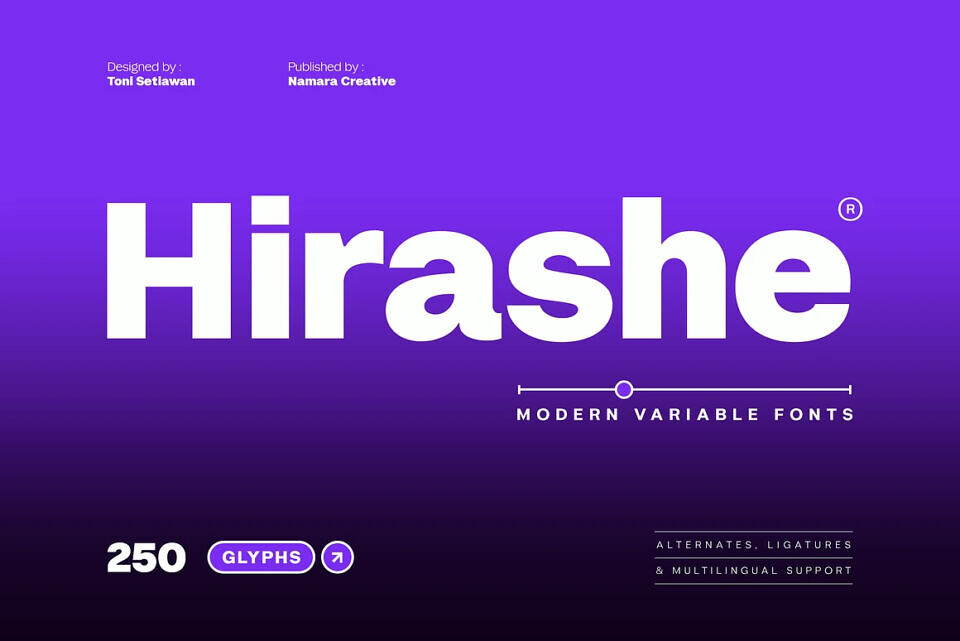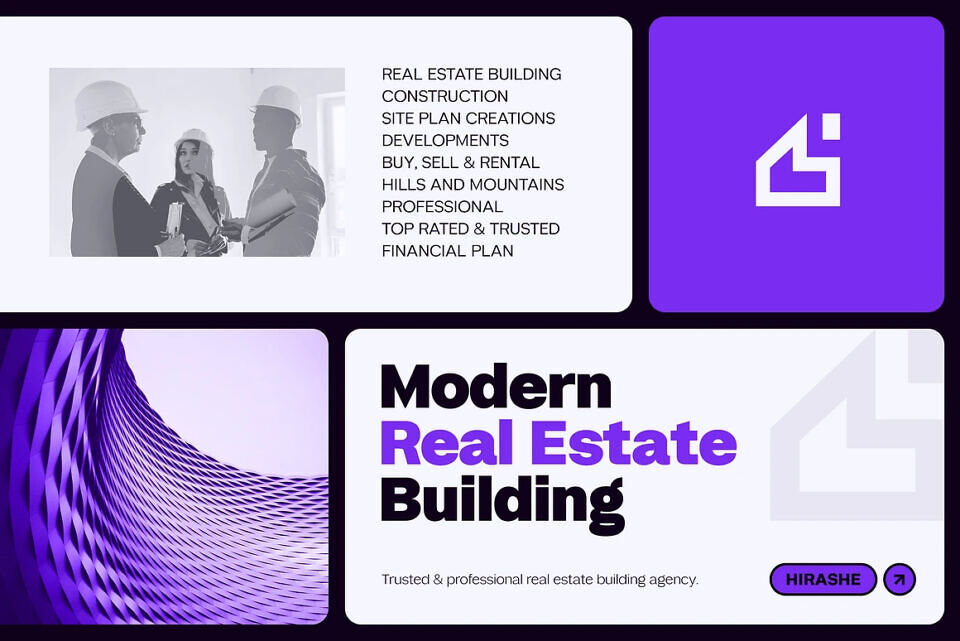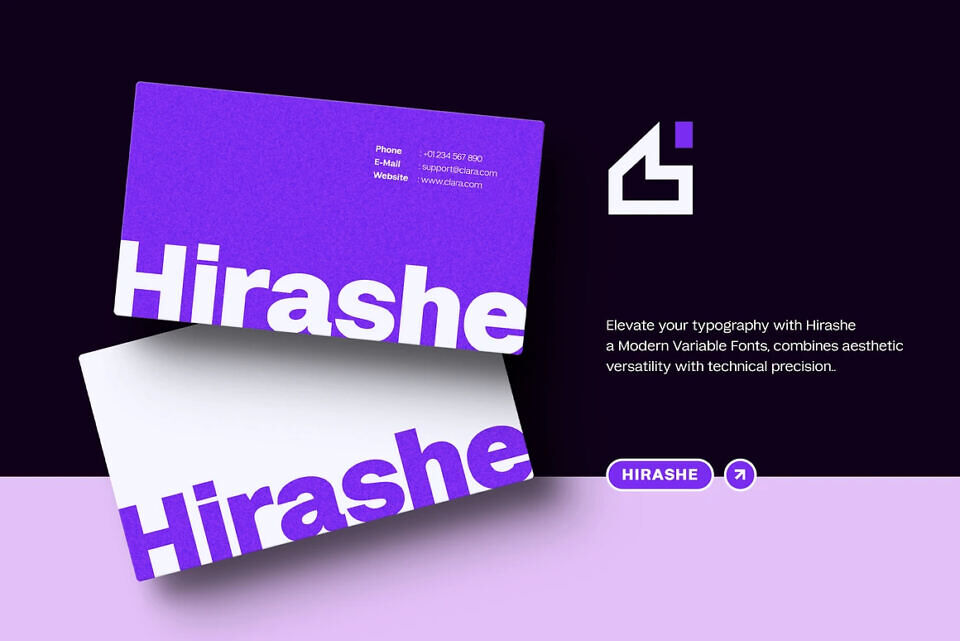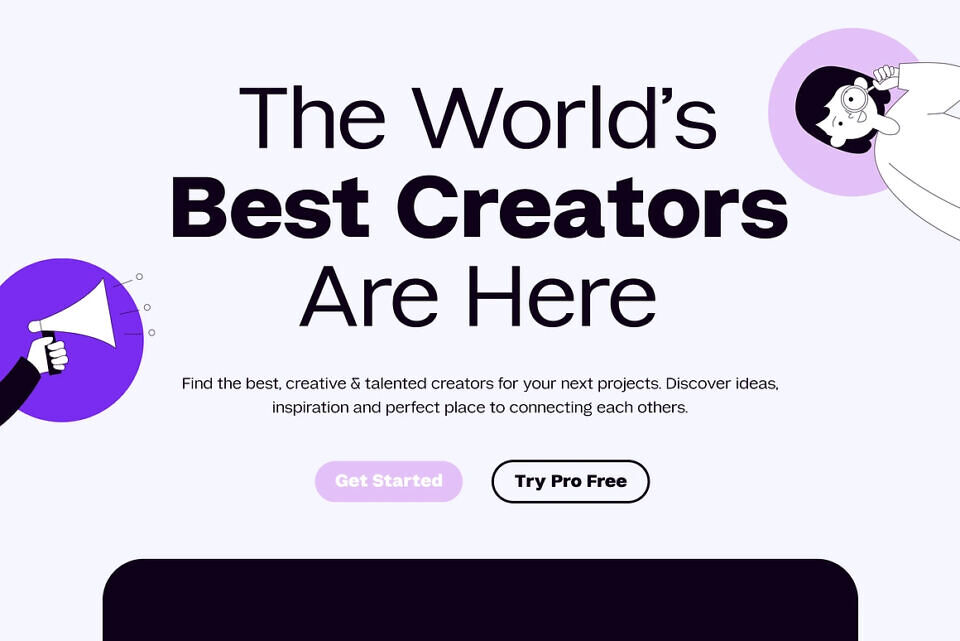
Hirashe is a modern variable sans-serif font designed to bring flexibility and precision to contemporary typography. Its clean, bold structure makes it ideal for branding, headlines, and digital layouts, while the variable system allows smooth weight adjustments within a single file.
With over 250 glyphs, including alternates and ligatures, it supports multilingual use and creative versatility. The typeface delivers a refined and professional look across print and web projects. The free version includes only the Black style, offering a strong, impactful appearance perfect for standout titles.